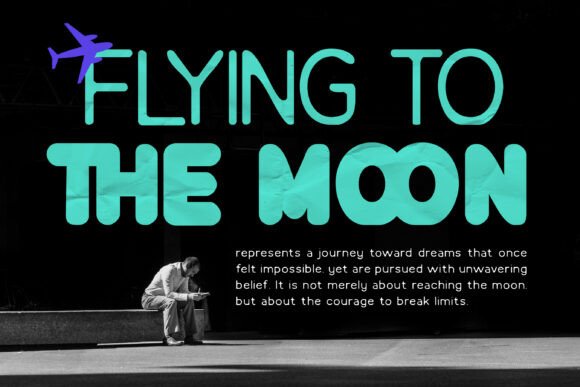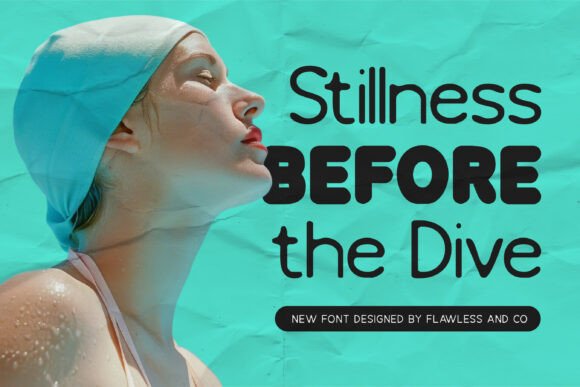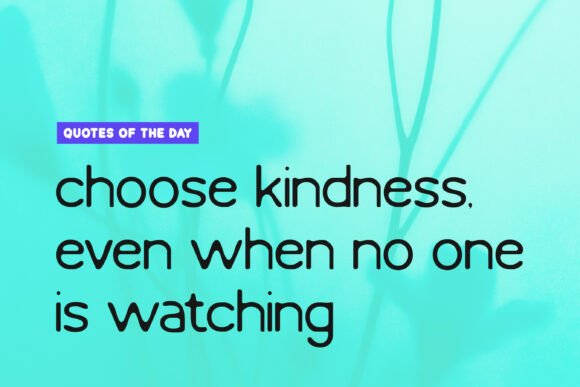
Introduction to Rittoke Font
Remember that moment when you’re working on a creative project, and you’re stuck trying to find the perfect font to match your design vision? You browse through countless options, but none seem to capture the essence of your idea. That’s where the Rittoke Font comes in – a game-changing design resource that offers unparalleled versatility and flexibility.
With its clean lines, balanced proportions, and modern feel, the Rittoke Font is a high-quality addition to any designer’s toolkit. This free download is perfect for creatives who want to elevate their designs with a professional yet stylish touch. Whether you’re building a brand identity or crafting eye-catching layouts, the Rittoke Font gives you the tools to create with consistency and impact, all while enjoying a transparent background that lets your design shine.
Key Features of Rittoke Font
- High-quality design resource ideal for creative projects, offering a unique aesthetic.
- Rittoke Font is a versatile design resource suitable for a wide range of creative projects, from logos to typography-based designs.
- Includes a comprehensive character set, including uppercase and lowercase letters, numbers, and punctuation marks, making it a valuable addition to your design resource library.
Honest Review: Rittoke Font
I recently stumbled upon the Rittoke Font, and I must say it’s a hidden gem in the world of free design resources. This high-quality font is perfect for any creative project that requires a unique touch.
Here are some things that work well about the Rittoke Font:
- ✨ Wide range of character sets: The font includes a comprehensive set of characters, including letters, numbers, and symbols.
- ✨ Versatile design: The Rittoke Font is highly versatile and can be used in various design contexts, from logos to headings.
- ⚠️ Limited font sizes: The font may not be suitable for very large or very small text sizes, as it can become distorted or lose its clarity.
- ⚠️ Limited support for special characters: While the font has a wide range of characters, it may not support some special characters or languages.
Overall, I’m impressed with the Rittoke Font’s quality and versatility. It’s a great addition to any designer’s toolkit, and I would highly recommend it for any creative project. With its high-quality design and transparent background, it’s a must-have for any design resource collection.
Tips for Getting the Most Out of Rittoke Font
For the best results, use the Rittoke Font on a transparent background to create a clean and modern look. You can also experiment with different font sizes, colors, and styles to add visual interest to your design.
The Rittoke Font is ideal for a variety of creative projects, including logos, brochures, business cards, and social media graphics. Its high-quality design makes it perfect for both personal and professional projects.